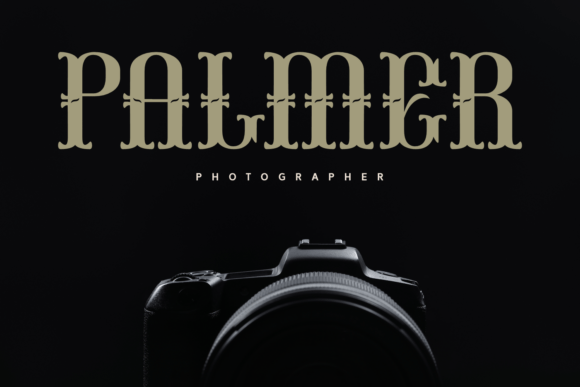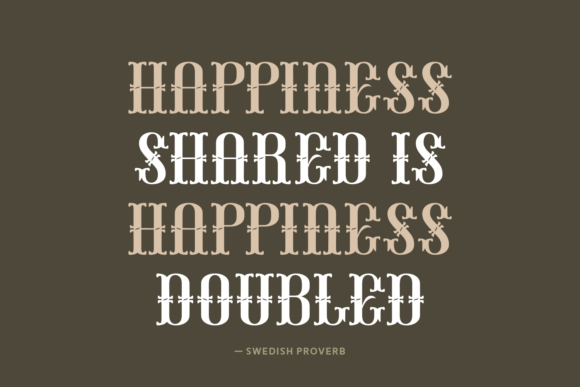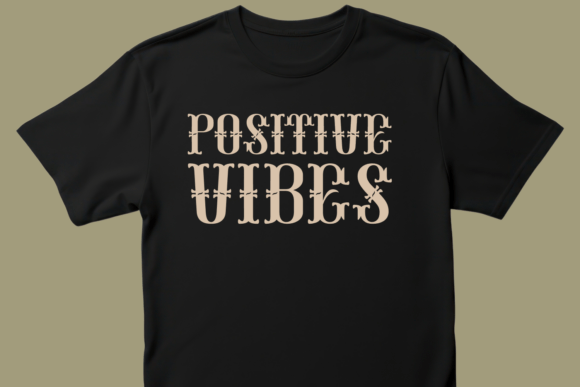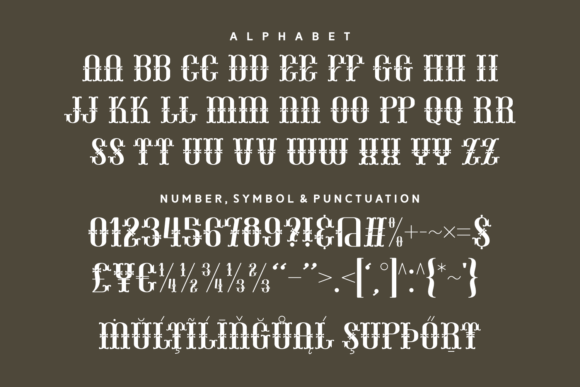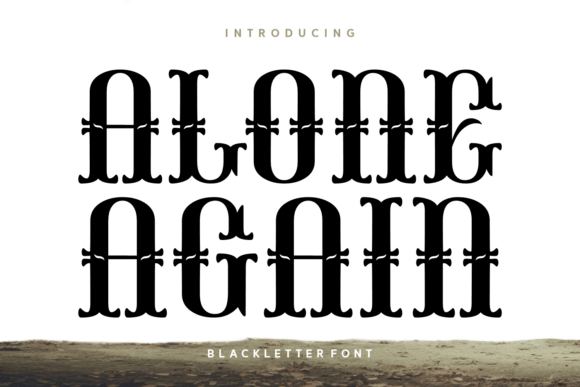
Discover the Timeless Charm of Alone Again Font: A Perfect Blend of Vintage Sophistication and Modern Relevance
In the realm of typography, few fonts manage to strike a balance between timeless charm and modern-day relevance. However, the “Alone Again” font stands out as a remarkable exception. This exquisite Blackletter typeface seamlessly marries vintage sophistication with a pinch of grunge appeal, making it an ideal choice for designers and crafters looking to add a touch of elegance and edge to their projects.
A Versatile Typeface for Diverse Applications
One of the standout features of the Alone Again font is its versatility. Whether you’re designing a website layout, a fashion-forward magazine, or a bespoke t-shirt, this font is perfectly adept at enhancing a variety of platforms. Its unique blend of classic and modern elements makes it an excellent choice for a range of applications, including:
- Website layouts: Add a touch of sophistication and elegance to your website with the Alone Again font.
- Fashion-forward magazines: Elevate your magazine’s style with this font’s vintage charm and modern edge.
- Bespoke t-shirts: Create striking and memorable designs with the Alone Again font.
- Heartfelt greeting cards: Add a personal touch to your greeting cards with this beautiful typeface.
- Arresting branding and product packaging: Make your brand stand out with the Alone Again font’s unique blend of vintage and modern elements.
- Invitations: Create elegant and sophisticated invitations for special occasions.
- Labels: Add a touch of style and sophistication to your labels.
- Eye-catching posters or logos: Make a lasting impression with the Alone Again font’s bold and striking presence.
Perfect for Book Covers and Quotes
If you’re looking to create a striking book cover, look no further than the Alone Again font. Its clean, crafty edge and commanding presence make it an ideal choice for accentuating quotes on t-shirts, book covers, and other marketing materials. The font’s multilingual support also makes it a must-have in a globalized world, allowing you to reach a wider audience with your designs.
A Time-Honored Black Font with a Modern Twist
The Alone Again font carries the essence of time-honored black fonts that never lose their allure. Its classic Blackletter style is infused with a modern twist, making it a perfect blend of old and new. This font is sure to leave an indelible mark on your designs, whether you’re creating a book cover, website, or marketing materials.
Why Choose Alone Again Font?
So, why choose the Alone Again font for your next project? Here are just a few reasons:
- Unique blend of vintage and modern elements: The Alone Again font offers a distinctive blend of classic and modern elements, making it perfect for designers and crafters looking to add a touch of elegance and edge to their projects.
- Versatility: This font is suitable for a wide range of applications, from website layouts to bespoke t-shirts.
- Multilingual support: The Alone Again font supports multiple languages, making it a must-have in a globalized world.
- Timeless charm: This font’s classic Blackletter style ensures that it will never go out of style.
In conclusion, the Alone Again font is a versatile and elegant typeface that is perfect for designers and crafters looking to add a touch of sophistication and edge to their projects. Its unique blend of vintage and modern elements, combined with its multilingual support and timeless charm, make it an ideal choice for a wide range of applications. Whether you’re creating a book cover, website, or marketing materials, the Alone Again font is sure to leave a lasting impression.